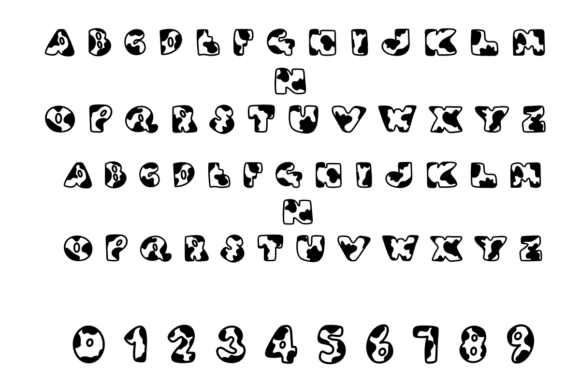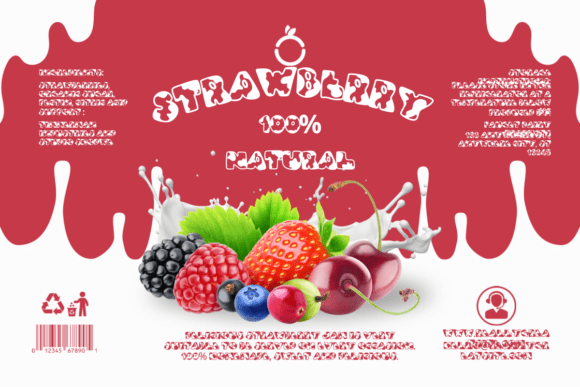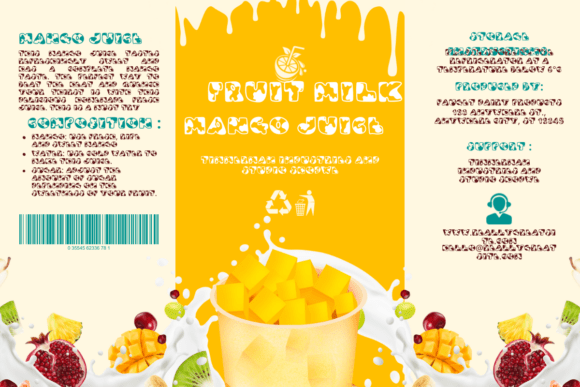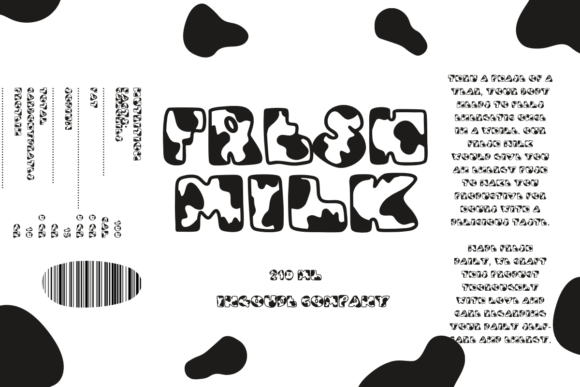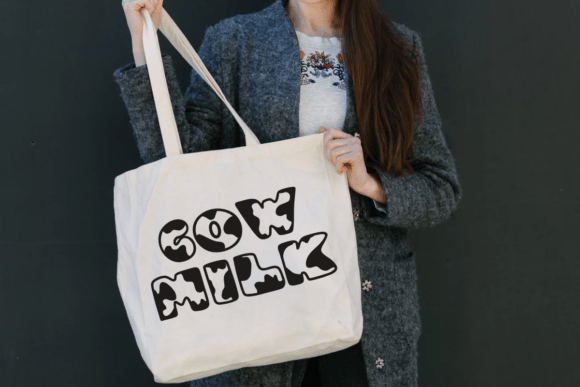
Cow Milk Font: A Playful and Quirky Display Font for Your Creative Projects
Are you looking for a font that adds a touch of rural charm and graphic novelty to your designs? Look no further than the Cow Milk Font, a bold and quirky display font inspired by cow print patterns. This fun and playful font is perfect for dairy branding, farm-themed projects, kids’ merchandise, and fun signage.
The Inspiration Behind Cow Milk Font
The Cow Milk Font is inspired by the classic cow print patterns that we all know and love. Each letter is filled with playful black-and-white spots, giving it a unique and eye-catching look. The font is designed to bring a dose of rural charm and graphic novelty to any layout, making it perfect for designers and crafters who want to add a touch of whimsy to their work.
Key Features of Cow Milk Font
- Bold and Quirky Design: The Cow Milk Font has a bold and quirky design that is sure to grab attention. The playful black-and-white spots add a touch of fun and playfulness to any layout.
- Inspired by Cow Print Patterns: The font is inspired by classic cow print patterns, making it perfect for dairy branding, farm-themed projects, and kids’ merchandise.
- Perfect for Display Text: The Cow Milk Font is designed for display text, making it perfect for headlines, titles, and signage.
- Easy to Read: Despite its bold and quirky design, the Cow Milk Font is easy to read, making it perfect for use in a variety of creative projects.
Use Cases for Cow Milk Font
The Cow Milk Font is a versatile font that can be used in a variety of creative projects. Here are some use cases to get you started:
- Dairy Branding: The Cow Milk Font is perfect for dairy branding, including milk bottles, yogurt cups, and cheese labels.
- Farm-Themed Projects: The font is also perfect for farm-themed projects, including farm signs, animal prints, and agricultural branding.
- Kids’ Merchandise: The Cow Milk Font is a great choice for kids’ merchandise, including t-shirts, stickers, and coloring books.
- Fun Signage: The font is also perfect for fun signage, including billboards, posters, and flyers.
Tips for Using Cow Milk Font
Here are some tips for using the Cow Milk Font in your creative projects:
- Use it as a Display Font: The Cow Milk Font is designed for display text, so use it as a headline or title font to grab attention.
- Pair it with a Simple Font: Pair the Cow Milk Font with a simple font to create contrast and add visual interest to your design.
- Experiment with Colors: The Cow Milk Font looks great in black and white, but don’t be afraid to experiment with different colors to add more visual interest.
The Cow Milk Font is a bold and quirky display font that is perfect for designers and crafters who want to add a touch of rural charm and graphic novelty to their work. With its playful black-and-white spots and bold design, this font is sure to grab attention and add visual interest to any layout. Whether you’re working on dairy branding, farm-themed projects, kids’ merchandise, or fun signage, the Cow Milk Font is a great choice.